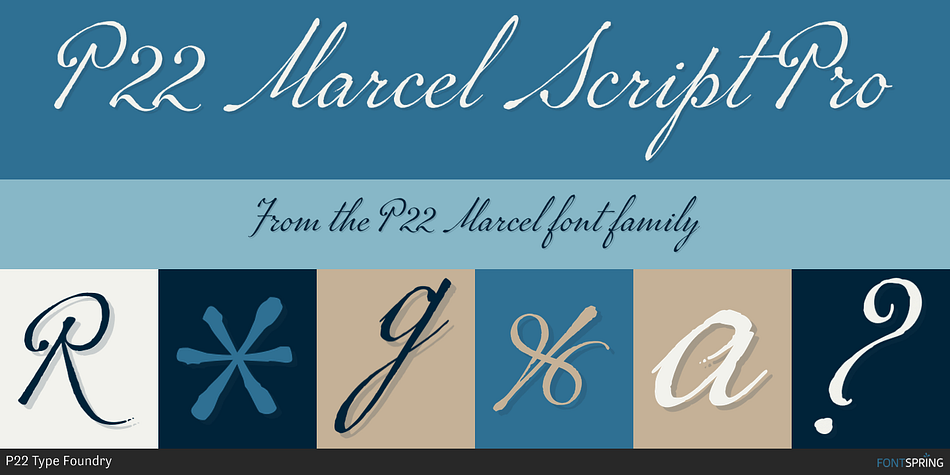
P22 Marcel Script Pro
P22 Marcel is a dingbat, script and display serif font family. This typeface has six styles and was published by P22 Type Foundry.
The font Marcel is named in honor of Marcel Heuzé, a Frenchman who was conscripted into labor during World War II.
The font Marcel is named in honor of Marcel Heuzé, a Frenchman who was conscripted into labor during World War II. During the months Marcel was in Germany, he wrote letters to his beloved wife and daughters back home in rural France. Marcel’s letters contain rare first-person testimony of day-to-day survival within a labor camp, along with the most beautiful expressions of love imaginable. The letters — stained and scarred with censor marks — were the original source documents used by designer Carolyn Porter to create a script font that retains the expressive character of Marcel Heuzé’s original handwriting.
The result of years of research and design work, Marcel Script features more than 1300 glyphs. The font is a highly readable running script that includes textural details that capture the look of ink on paper. The font Marcel Caps is a hand-lettered titling face intended as a companion to the Script. Marcel EuroPost One and Two each feature more than 200 postmarks, cancellation and censor marks, and other embellishments found on historical letters and documents.